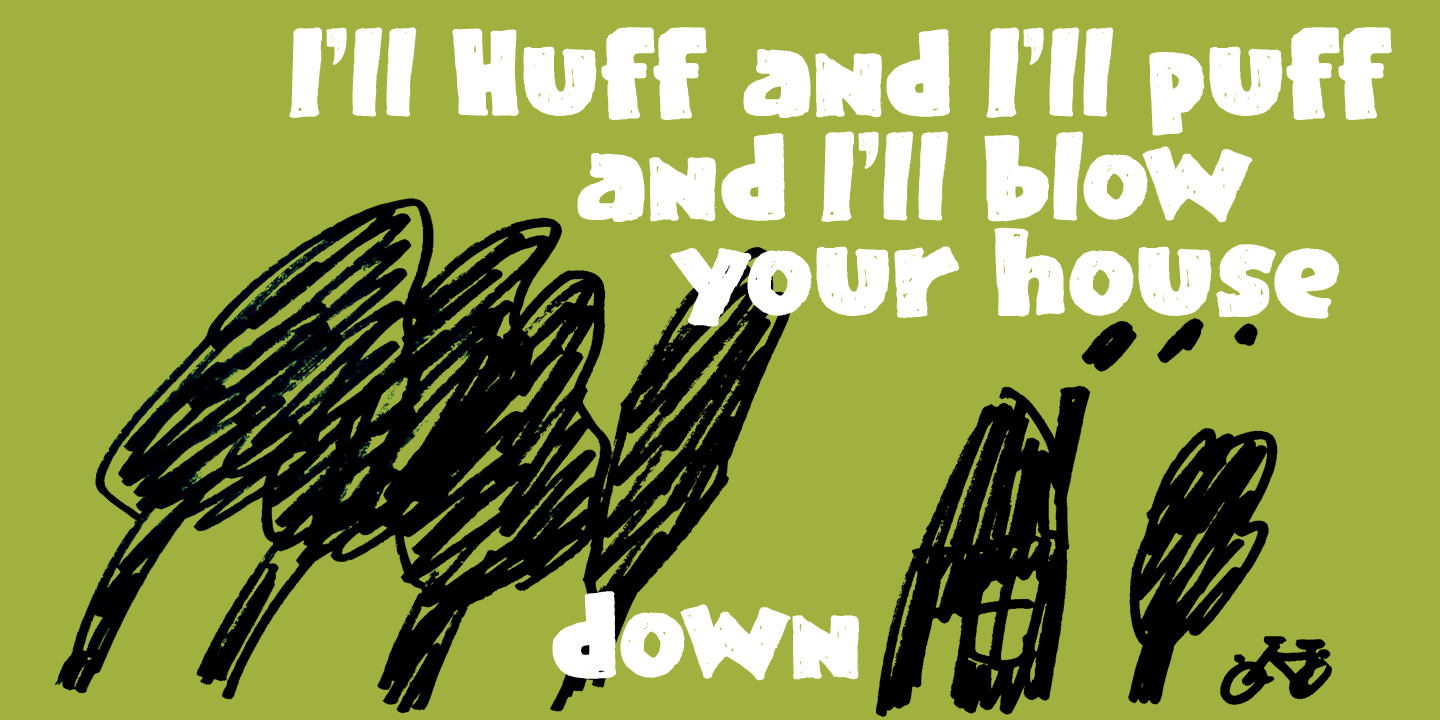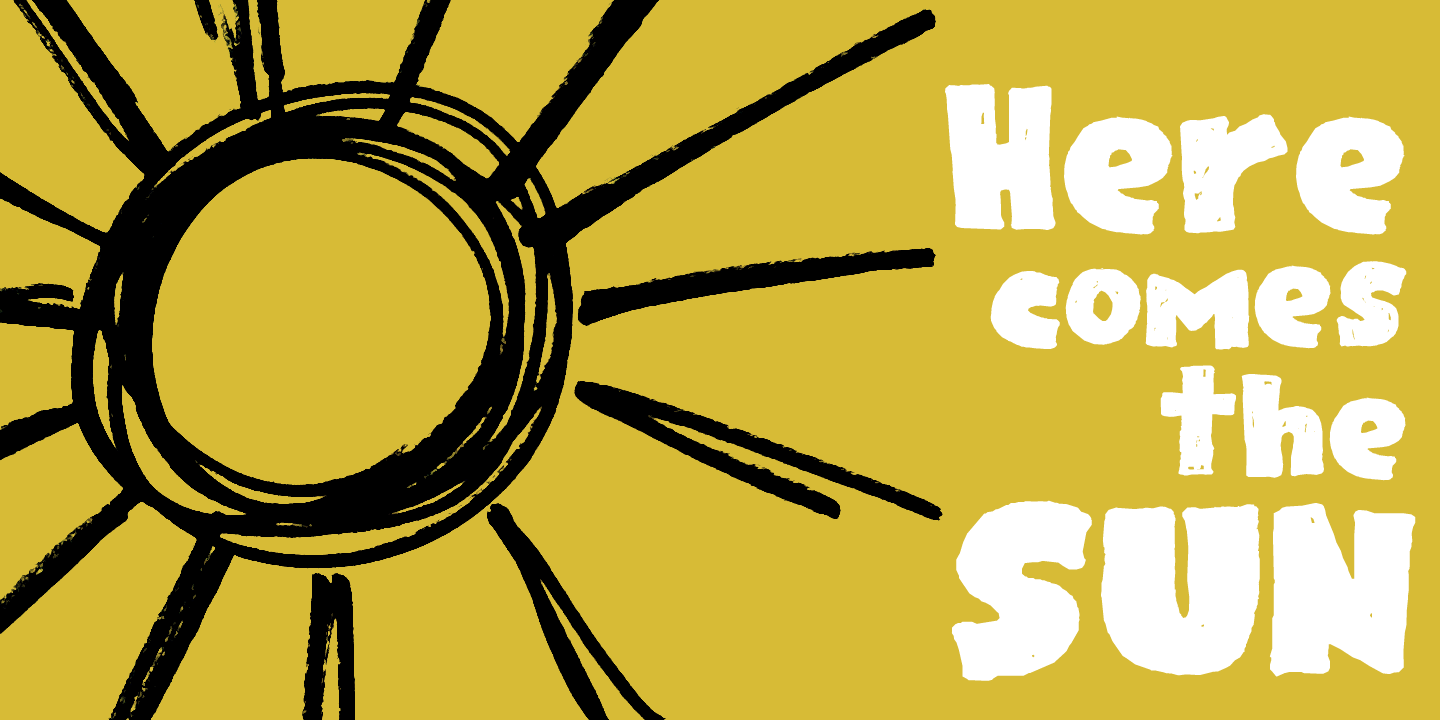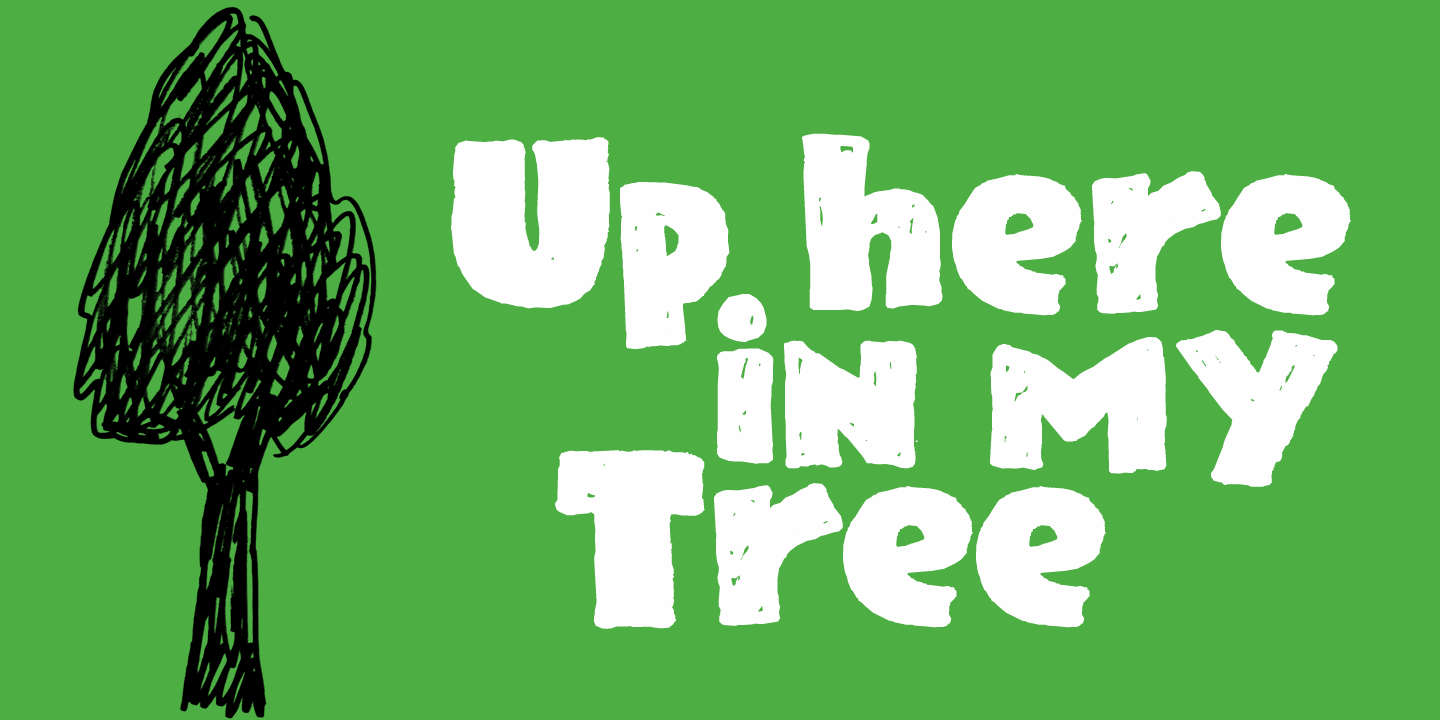
About Rainclouds
I was doodling away with a sharpie pen on a rainy day. Hey? wait a minute. A rainy day, a font called Rainclouds? Yep, that\’s right, it is called Rainclouds for that reason! 😉 Rainclouds is a fat marker font with a lot of texture and a lot of mouth.…